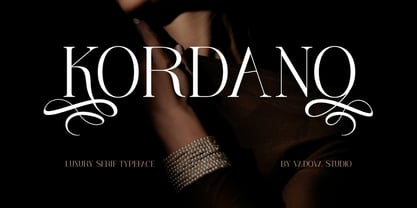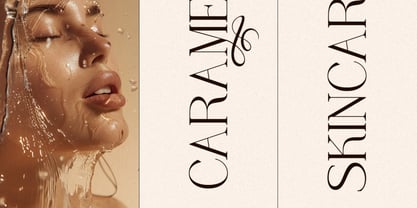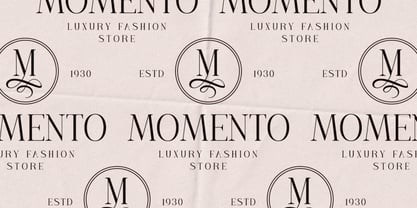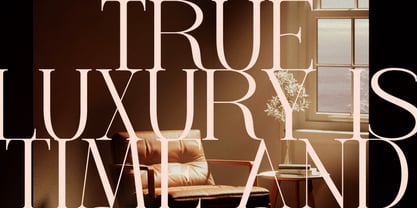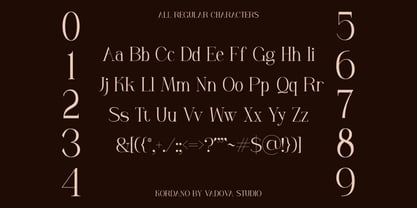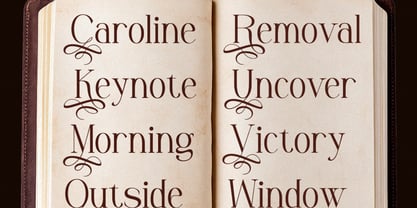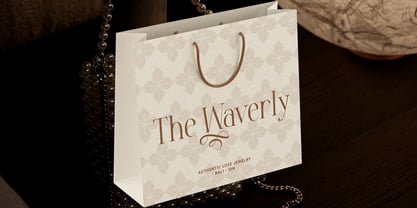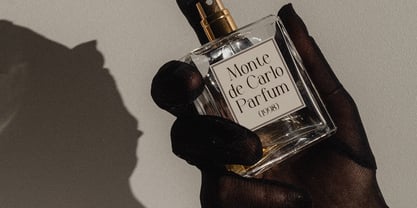
Kordano
by Vadova Std
The Kordano Font Family and published by Vadova Std. Kordano contains 1 styles. More about this family
Kordano is a luxury serif typeface designed to embody elegance, glamour, and refined sophistication. Crafted with high contrast strokes, sculpted serifs, and graceful curves, this typeface captures the essence of premium fashion and high-end beauty branding. Kordano is perfectly suited for luxury fashion brands, beauty and skincare packaging, perfume branding, high-end editorials, wedding invitations, boutique logos, cosmetic campaigns, magazine covers, premium website typography, and upscale marketing materials.